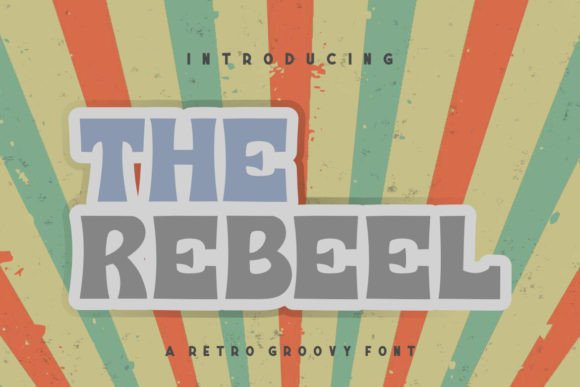
The Rebeel: A Unique Display Font for Handmade Branding
When I opened the The Rebeel file to test it on a new line of artisan candle labels, I immediately knew this was more than just another decorative typeface. As a designer who spends hours tweaking pixel-perfect mockups for shop listings and physical merchandise, finding a font that balances artistic flair with commercial viability is rare. This unique display font feels masterfully designed to become a true favorite for any creator looking to elevate their visual identity.
I decided to put The Rebeel through its paces across several different mediums, from digital printables to cut files for my Cricut machine. The moment I placed the text on a rustic kraft paper label, the font seemed to breathe life into the design instantly. It has the potential to bring each of your creative ideas to the highest level by adding a touch of sophisticated charm that generic fonts simply cannot replicate. Whether you are designing wedding invitations or seasonal product tags, The Rebeel stands out as a premium Display font that demands attention without overwhelming the viewer.
The Rebeel for Candle Labels and Boutique Packaging Design
One of the first things I tested was how The Rebeel performs when applied to small-scale packaging like candle jars and boutique gift boxes. In the world of handmade goods, the label is often the first interaction a customer has with your brand, so the typography must be legible yet evocative. I found that The Rebeel excels in this Display category because its distinct character creates an immediate sense of luxury and care.
I created a mockup for a lavender-scented soy candle, placing the product name in large, bold letters using The Rebeel. The curves and serifs caught the light beautifully in the final render, making the product look significantly more expensive than it actually was. However, I learned a valuable lesson about density: while The Rebeel is perfect for short phrases, names, and decorative wording, it can lose definition if used for long paragraphs of ingredient lists or safety instructions. For those technical details, I paired it with a clean sans serif font to ensure readability. This combination allows the eye to rest on the brand name while still absorbing all necessary information clearly.
The Rebeel for Wedding Invitations and Elegant Stationery
Moving from retail products to event design, I explored how The Rebeel translates to the delicate world of wedding stationery. Creating a cohesive suite of invitations requires a font that feels timeless yet personal. When I imported The Rebeel into my design software to draft a sample wedding invitation suite, the results were striking. The font's unique personality added a modern editorial feel that stood apart from the standard script-heavy trends seen on Pinterest.
I used The Rebeel for the main couple's names and the event title, letting it anchor the page with authority and grace. The weight of the strokes provided enough contrast to make the text pop against textured cardstock backgrounds. For the body text of the invitation, I switched to a classic serif font to maintain elegance without competing with the display header. This approach ensured that guests could easily read the date and location while still being captivated by the overall aesthetic. It is a versatile choice for bridal showers, welcome boards, and even digital RSVP pages where a strong visual statement is needed.
If you are creating printable wall art or planner pages with a romantic theme, The Rebeel offers a level of sophistication that elevates the perceived quality of your digital download. Buyers often associate high-quality typography with higher value, and this font delivers exactly that impression.
The Rebeel for Digital Downloads and Social Media Graphics
As a seller of digital assets, I frequently create listing images and social media graphics to promote my shop. The competition is fierce, and a good Display font can be the difference between a scroll-past and a click-through. I tested The Rebeel on a series of Instagram posts promoting a new line of greeting cards, and the engagement felt noticeably higher due to the visual impact of the type.
The font works exceptionally well for short, punchy headlines that need to grab attention quickly. I used it for bold quotes on quote cards and for the titles of downloadable planner templates. Because The Rebeel is a unique display font, it carries a specific mood that helps establish a consistent brand voice across different platforms. Whether you are designing a banner for a website header or a thumbnail for a YouTube tutorial on crafting, this font adds a layer of professionalism that signals expertise.
For creators using cutting machines like Silhouette Studio or Cricut Design Space, The Rebeel also shines. I exported the text as SVGs to create vinyl decals for mugs and tote bags. The paths were clean, and the corners were sharp, which made weeding the vinyl much easier compared to other highly decorative fonts. Just remember to check the included styles; if you need swashes or alternate characters to customize your designs further, ensure the file package includes them before purchasing for commercial use.